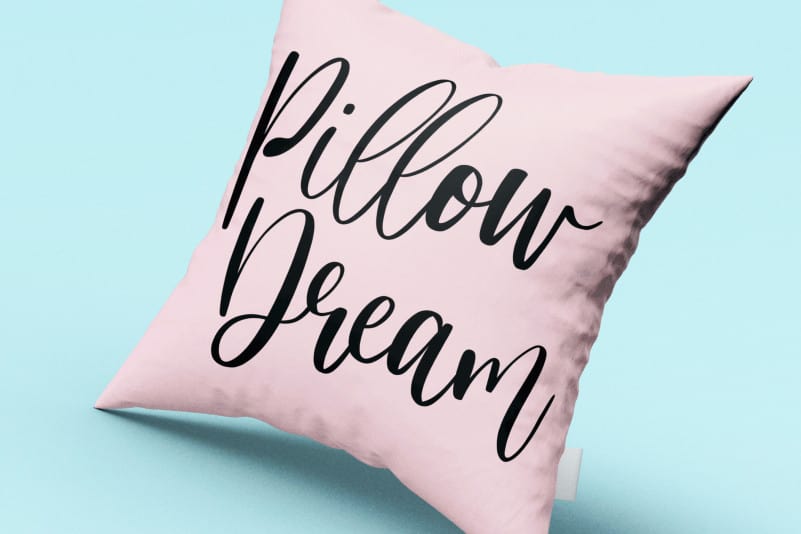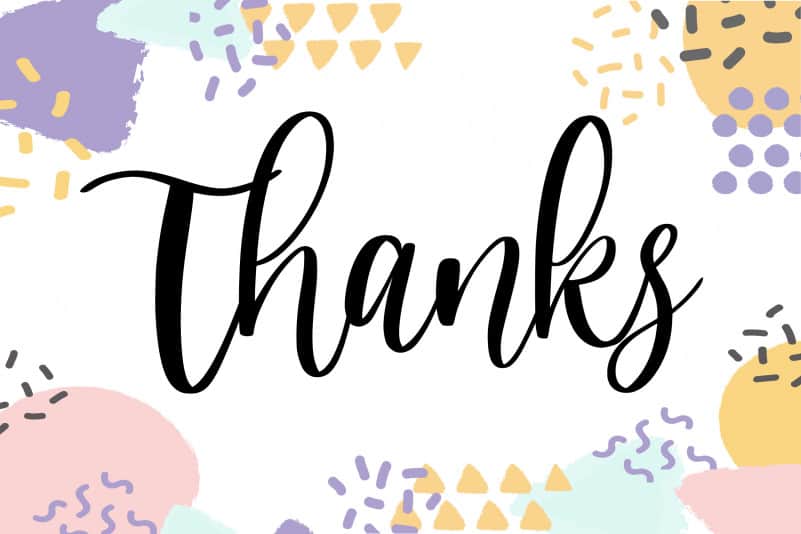
Nicholia Modern Calligraphy Font
Proudly Present, Nicholia Modern Calligraphy Font.
Nicholia is a Modern Calligraphy Font.
Nicholia is perfect for product packaging, branding project, megazine, social media, wedding, or just used to express words above the background.